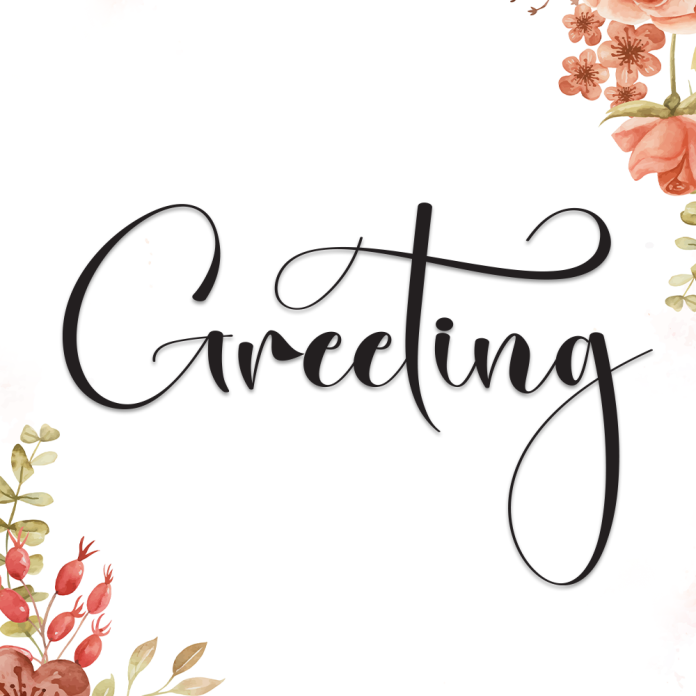
Greeting is a heartfelt handwriting font that radiates warmth, kindness, and a personal touch. With its soft, casual strokes and natural flow, this font feels like a handwritten message from a friend — perfect for making every word feel more personal and genuine.
Ideal for greeting cards, social media quotes, invitations, packaging, and lifestyle branding, Greeting brings comfort and charm to your design projects.
Casual and friendly handwritten style
Natural curves with a personal, welcoming feel
Great for cards, notes, branding, and social content
Say it from the heart with Greeting, the handwriting font that makes every word feel like home.